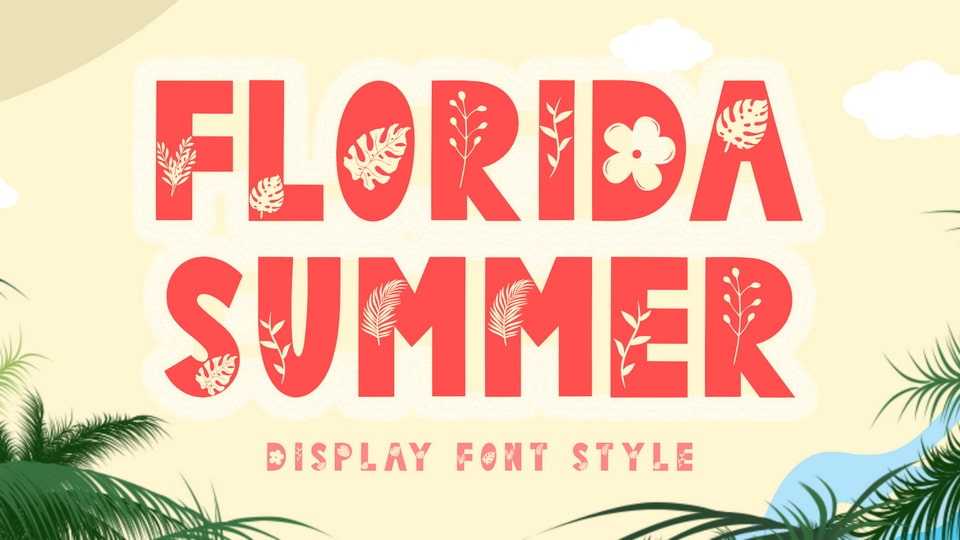
Download Florida Summer font, a unique and playful display typeface. It is very suitable for use in summer, camping, holiday, vacation, spring, banner, poster, print, branding, logo, sticker and others.